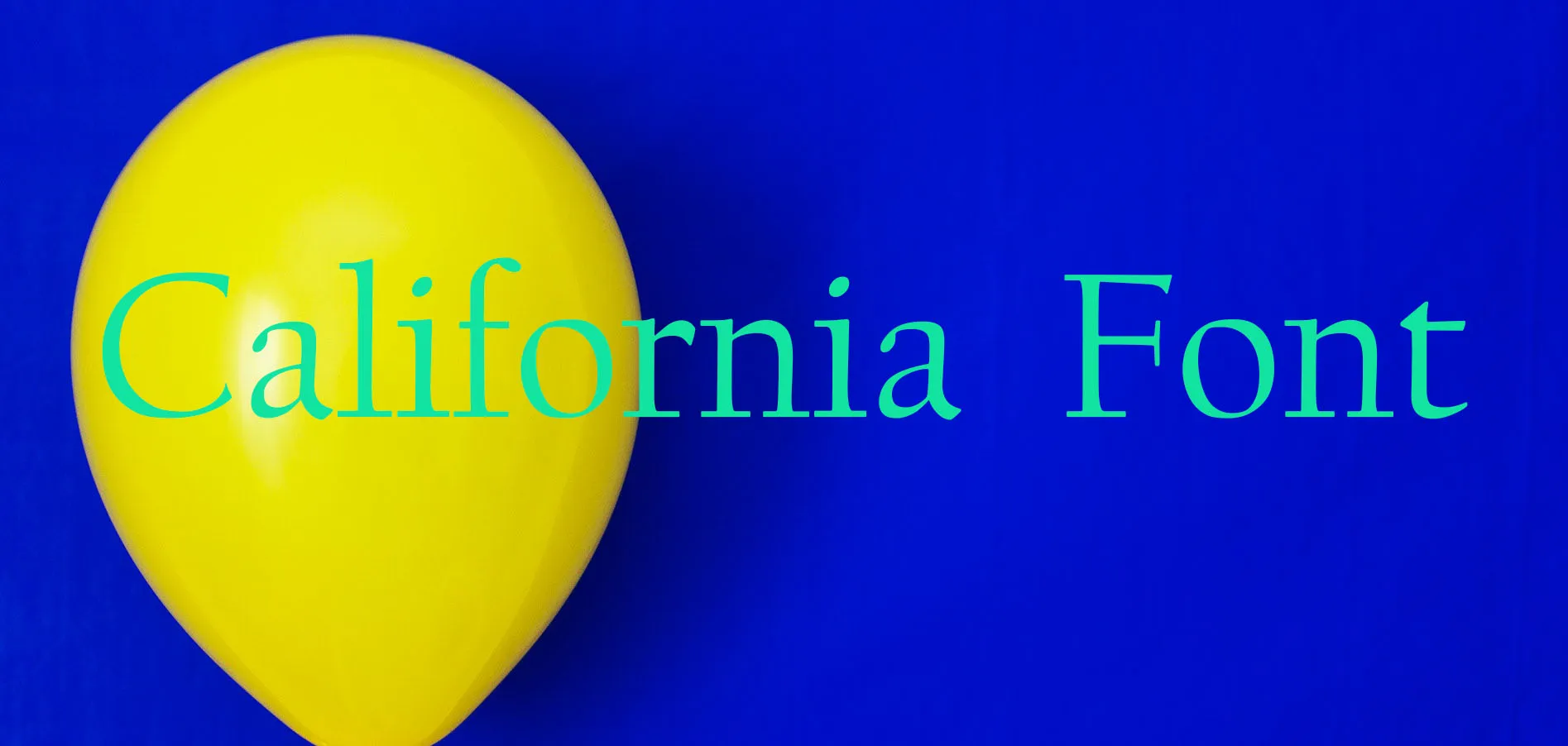
California Font Family is a very energetic typeface that is belonging to the Serif typeface family. That is California Font, has quick strokes and sharp edges, and is perfect for loud messages.
This font family was designed by Staircase Studio. An ideal font for any interesting logo, name tags, quotes, merchandise, greeting cards, and much more.
California Font